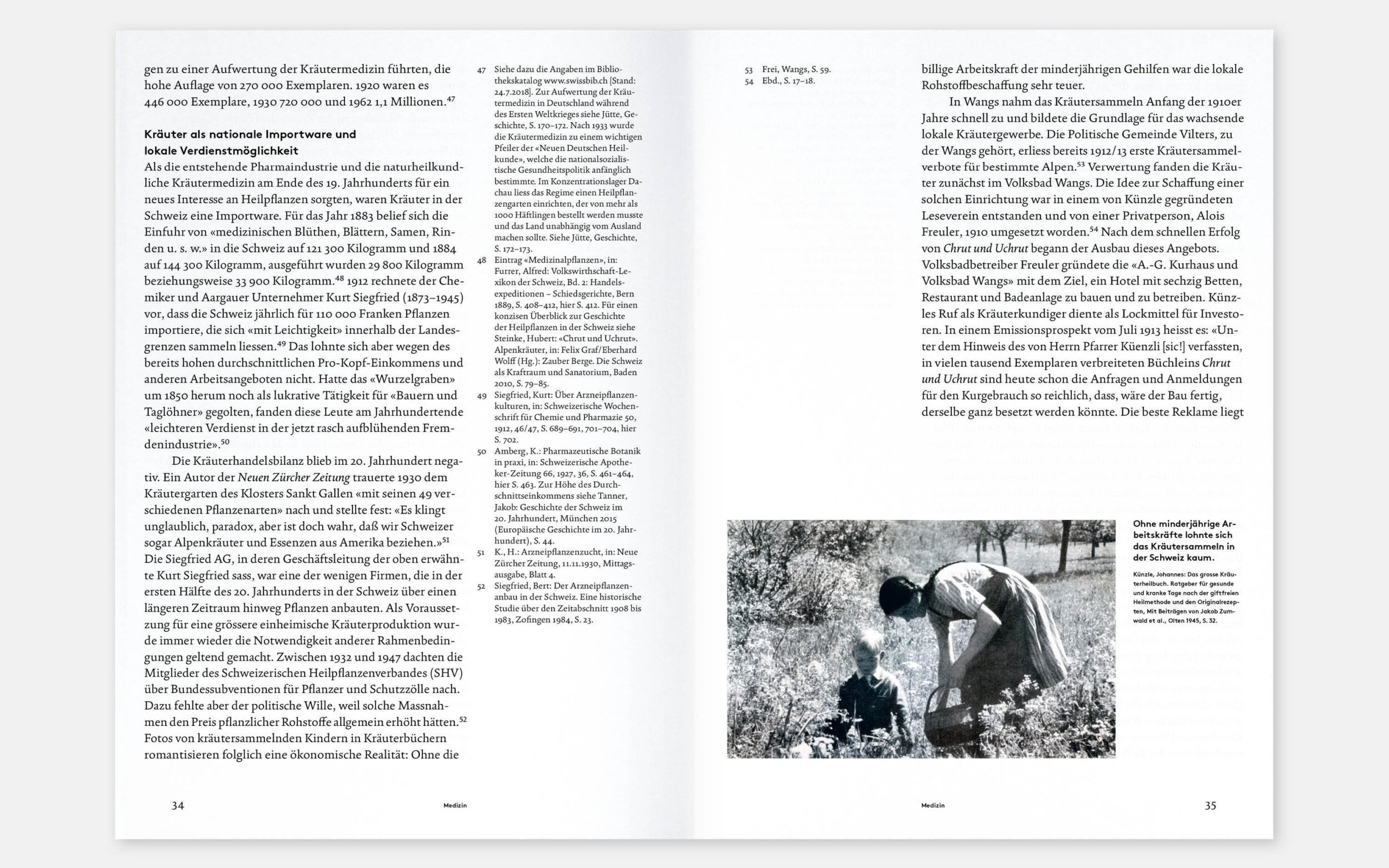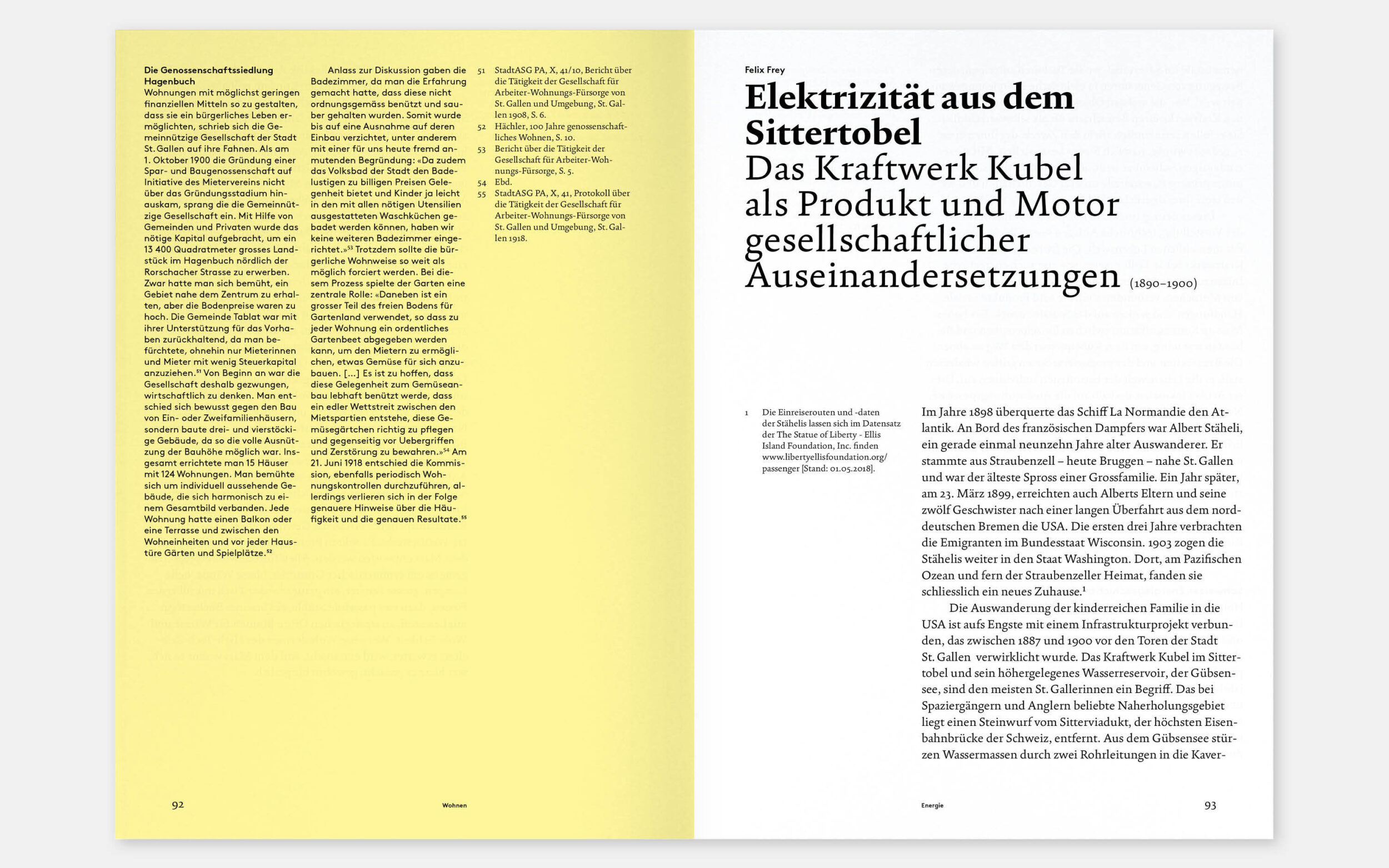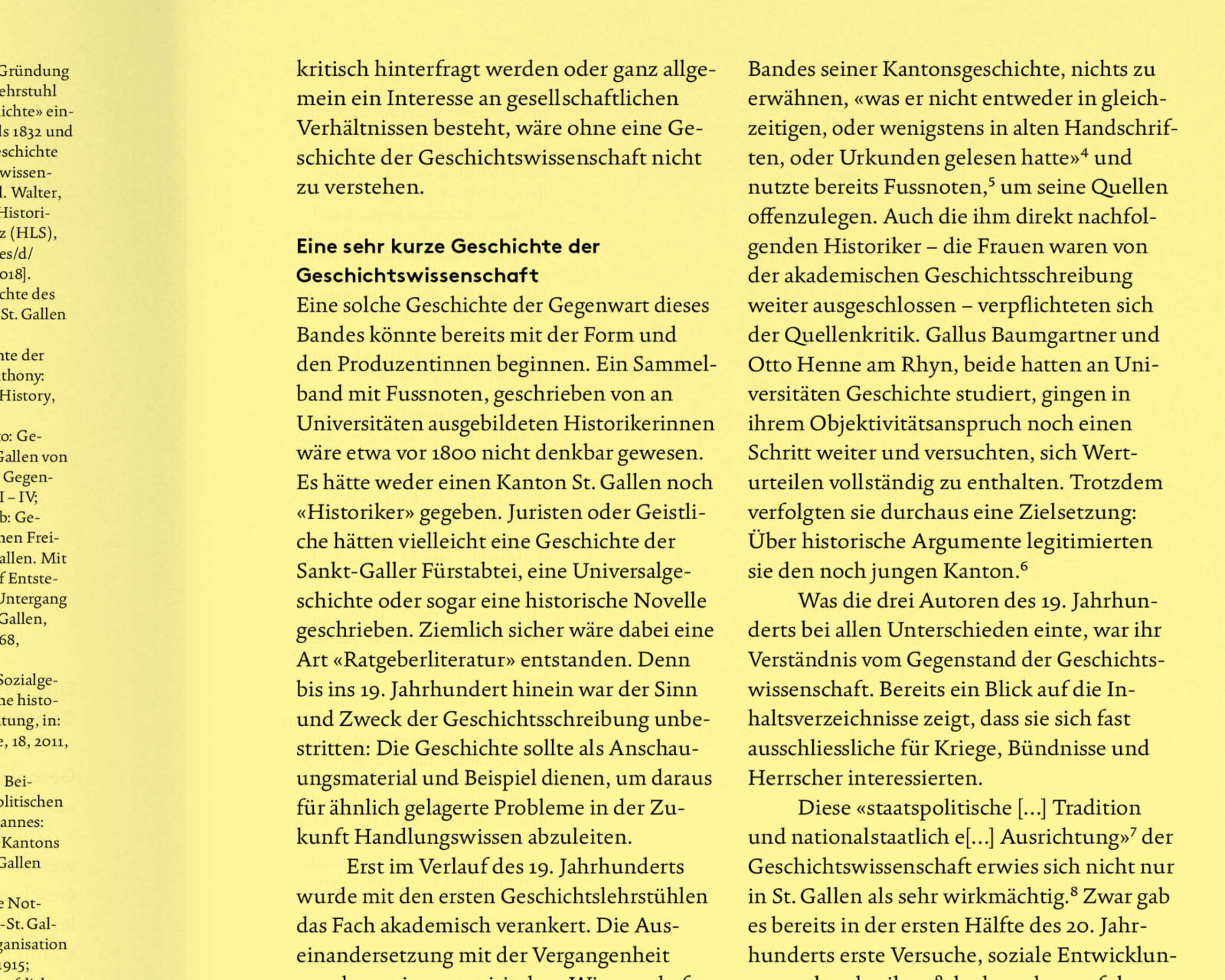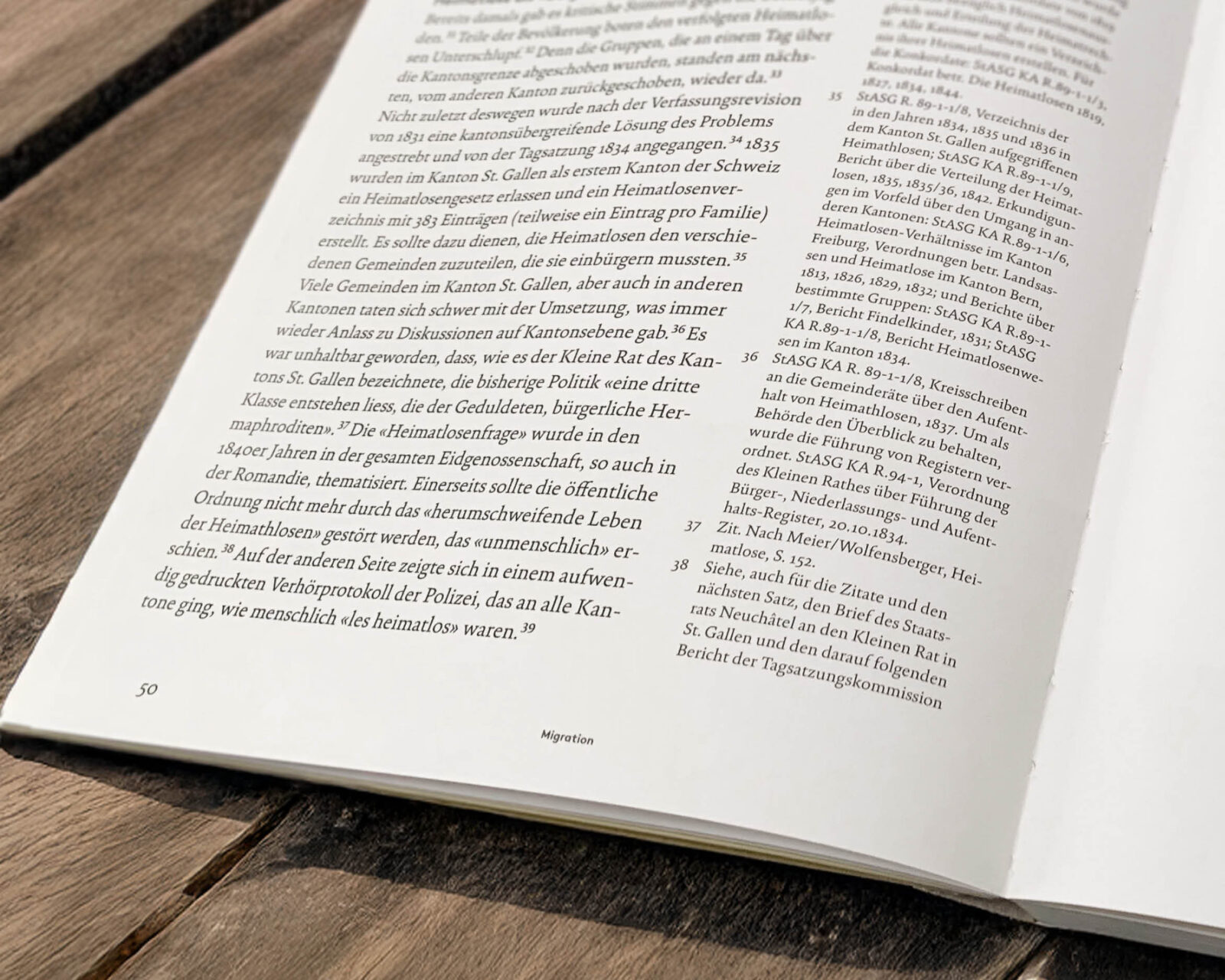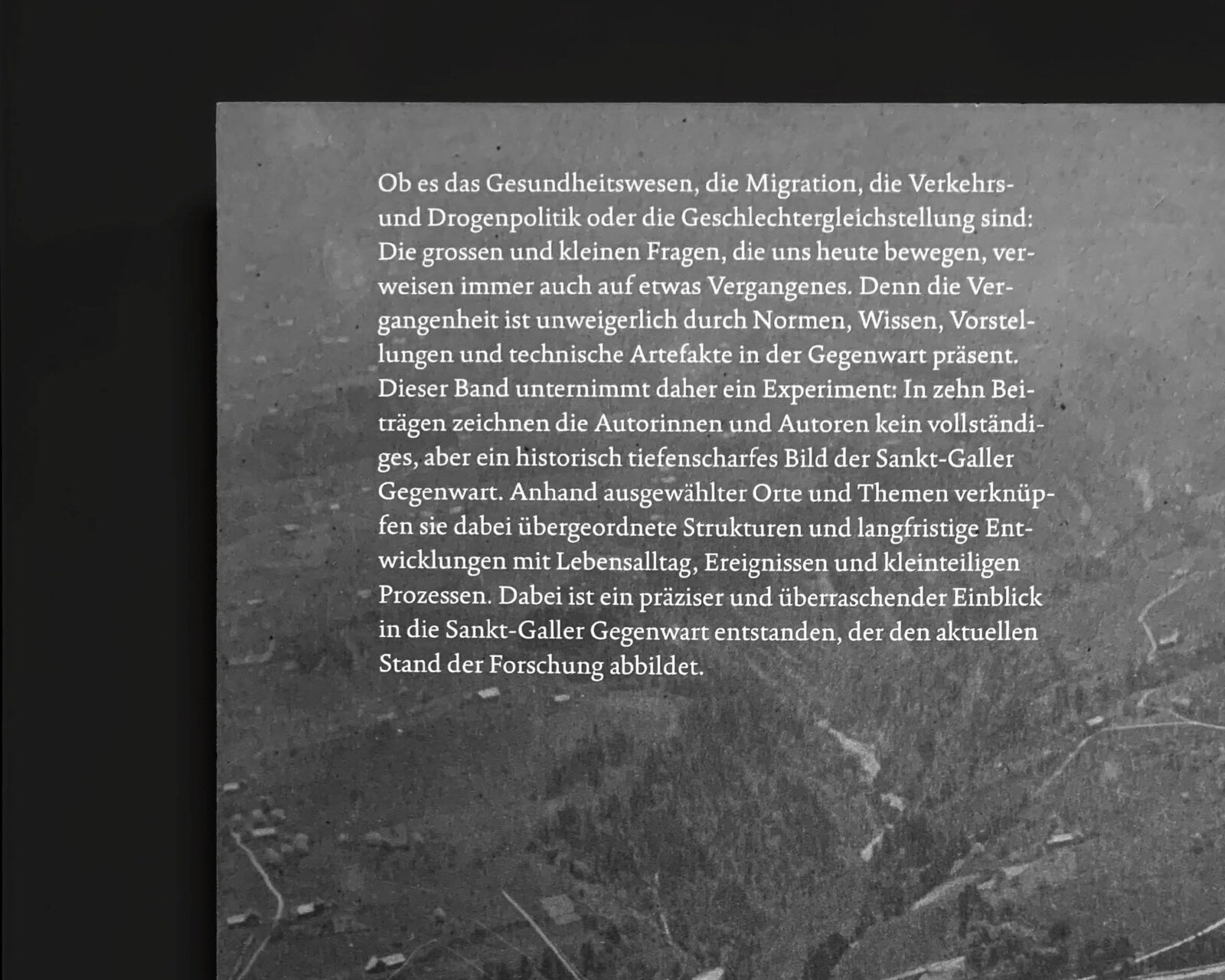
Eine Geschichte der St. Galler Gegenwart
For the St. Gallen history publication, Weymann Serif delivers a typography that conceptually matches the content: rooted in tradition, designed for the present.
The book “Eine Geschichte der St. Galler Gegenwart” (A History of Contemporary St. Gallen) brings together 10 articles that examine how the past manifests itself in contemporary St. Gallen. In their texts, the authors take a close look at various aspects such as migration, healthcare, and gender equality, and show how current norms and ideas have been shaped by local history. The 264-page hardcover, designed by TGG, uses Weymann Serif for body text, large headings, and annotations.
Weymann Serif is a good fit both conceptually and stylistically. Although the serif font is relatively young, it ties in with the past in a similar way to the book's content: typographic traditions are used as a basis and reflected in the design. The font is also explicitly designed for reading and long texts and impresses in the book with its clear, rational, yet characterful design. This creates a harmonious connection between form and content, a typography that pays equal tribute to history and the present.